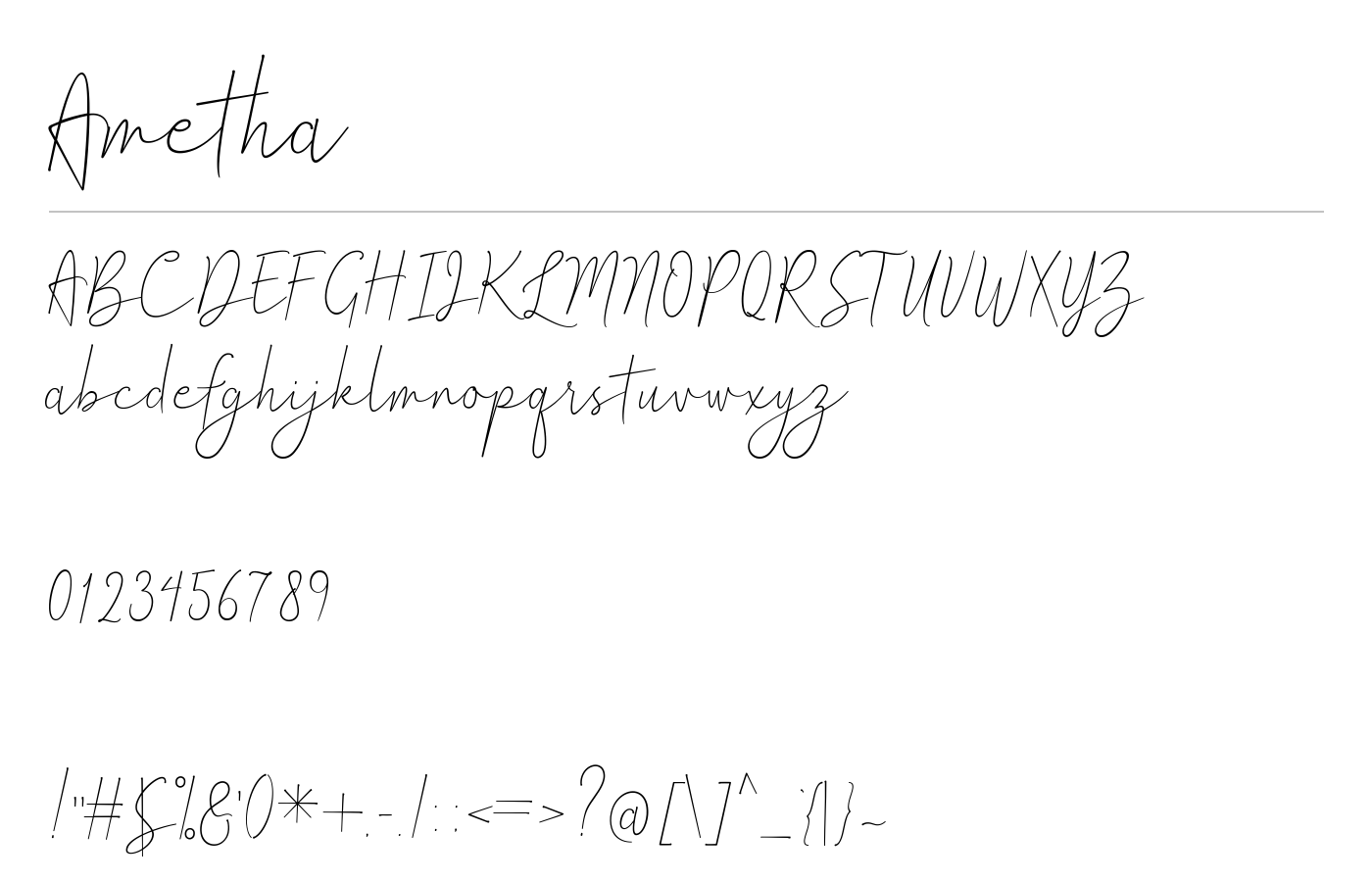
Ametha is a delicate, handwritten script font characterized by its thin, flowing lines and slightly irregular letterforms that give it a natural, personal touch. Its airy, elegant style makes it perfect for creative projects like invitations, branding for fashion or beauty products, and any design seeking a refined yet approachable aesthetic. The font’s light weight and unique letter shapes lend a sense of sophistication without feeling overly formal.
Ametha Font
About Ametha Font